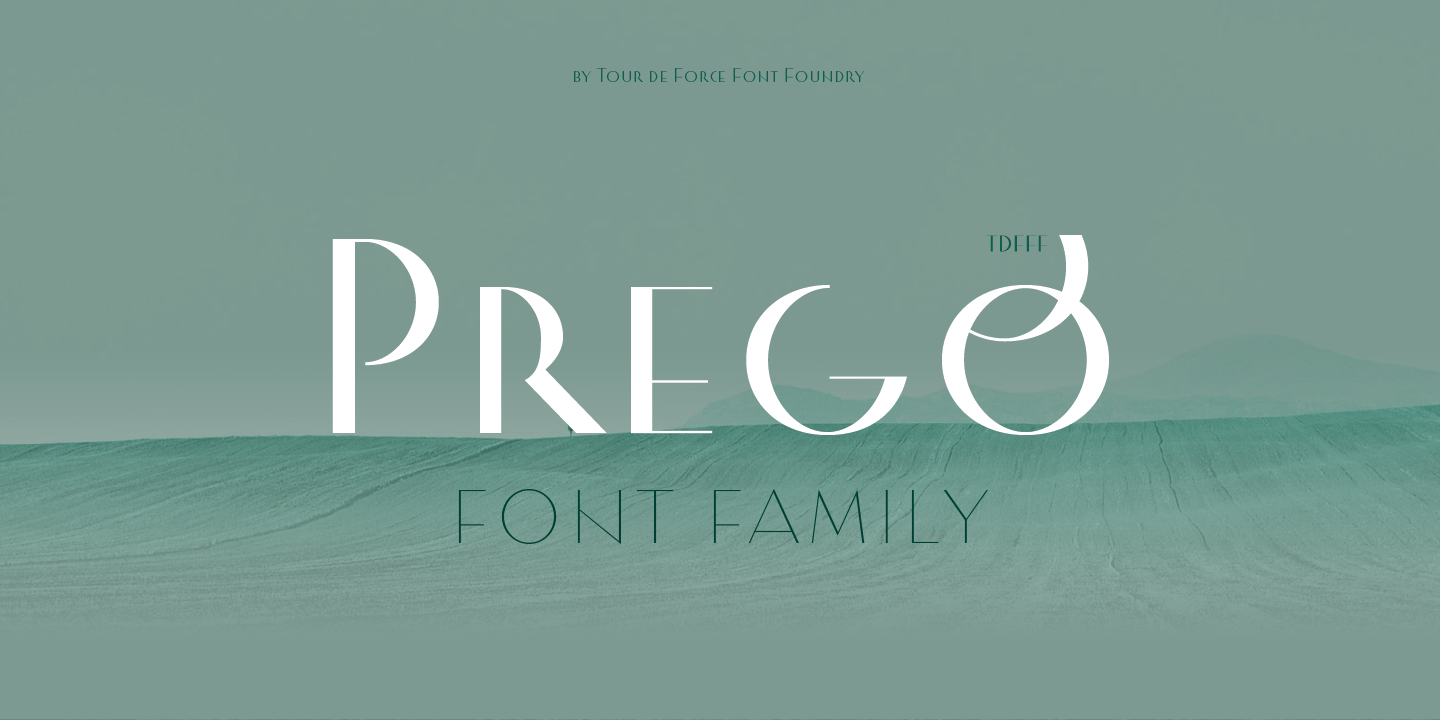
Prego Free Download
Prego Font Free Download
Prego Font Free Download is a sleek and versatile typeface that blends modern elegance with timeless simplicity. Perfect for logos, branding, packaging, editorial designs, and website headers, this font offers clean lines and balanced proportions that enhance any creative project. Its minimalist aesthetic makes Prego Font a great choice for designers seeking sophistication and clarity.
With Prego Font Free Download, you gain access to a complete set of uppercase, lowercase, numbers, and essential punctuation marks, providing flexibility for a wide range of design applications. Whether you’re creating business cards, invitations, product labels, or social media graphics, this font maintains readability while adding a refined touch.
Elevate your design work with the modern sophistication of Prego Font Free Download. Its clean, professional look makes it a valuable addition to any designer’s toolkit, helping you create stunning visuals that stand out in today’s competitive creative landscape.